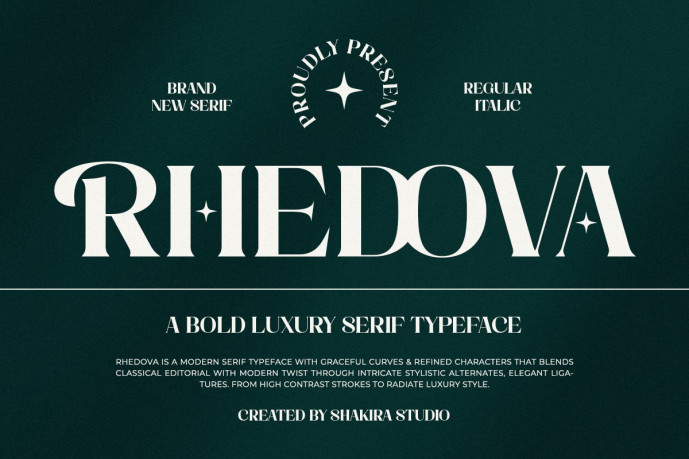
Rhedova Font
Designer: IdhhamCholid
Rhedova Font is a modern and bold serif typeface that represents the perfect balance between editorial grace and contemporary luxury. Its strong contrast and elegant terminals make it an excellent choice for fashion logos, magazines, packaging, posters, and high-end brands. Designed for designers who seek elegance and impact.